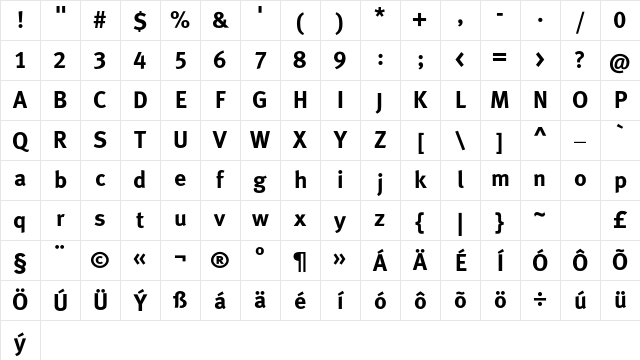
MetaBoldCELF Roman Free Font
MetaBoldCELF Roman
Design Context for MetaBoldCELF
MetaBoldCELF is a composed and adaptable typeface that performs quietly and consistently across a wide range of design contexts. Its bold stroke weight gives it real presence on the page.